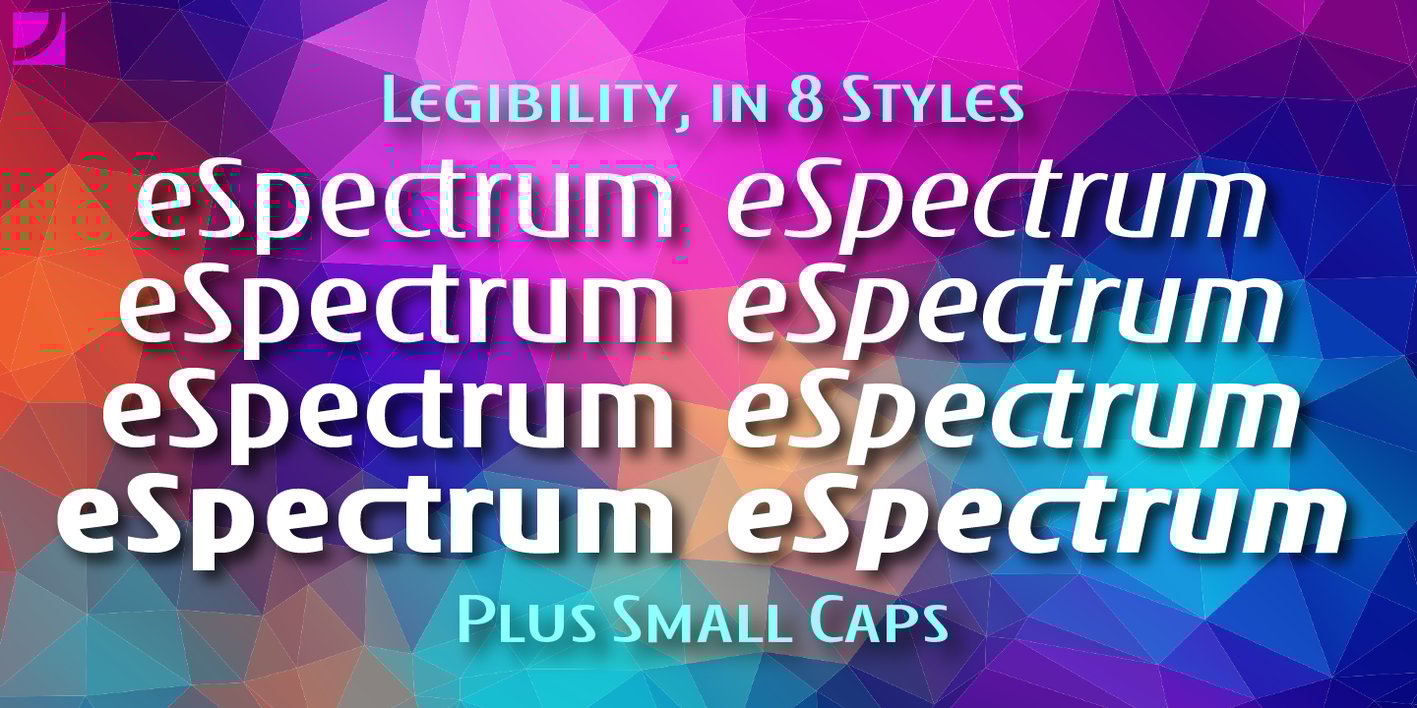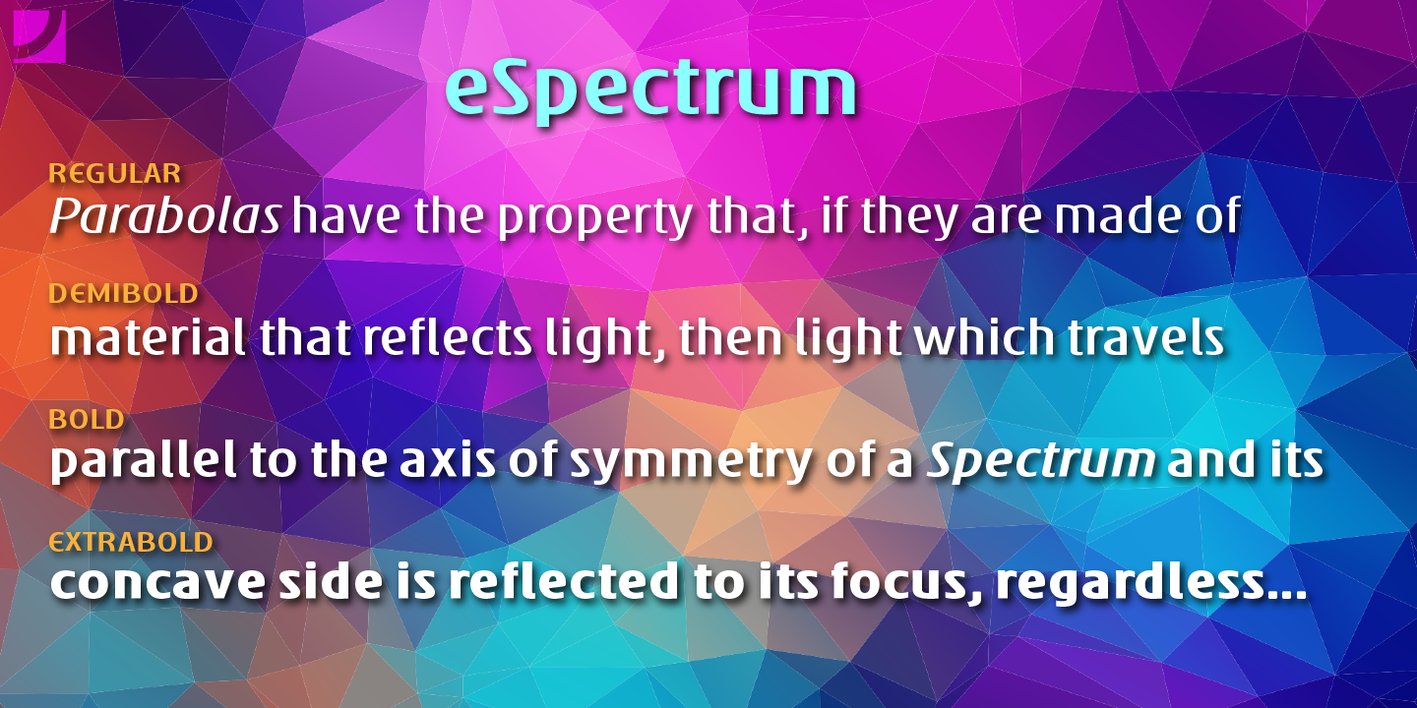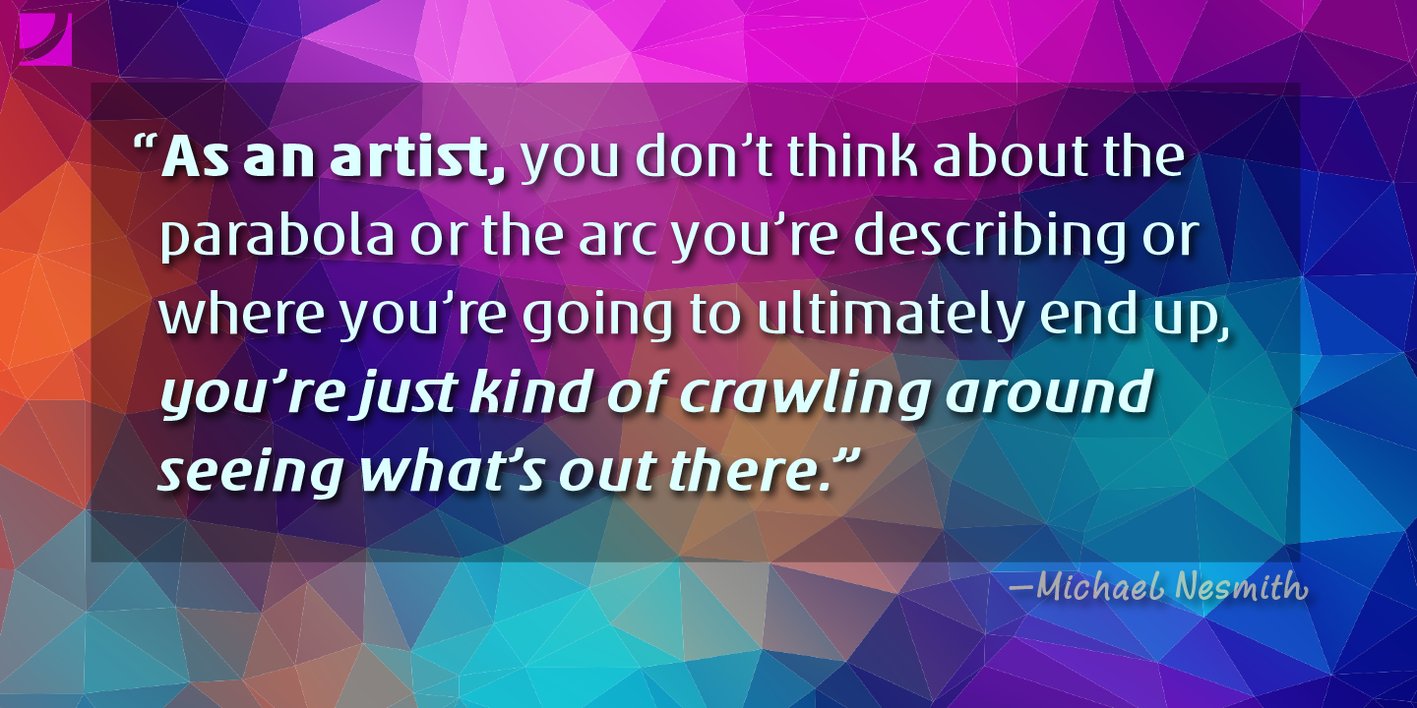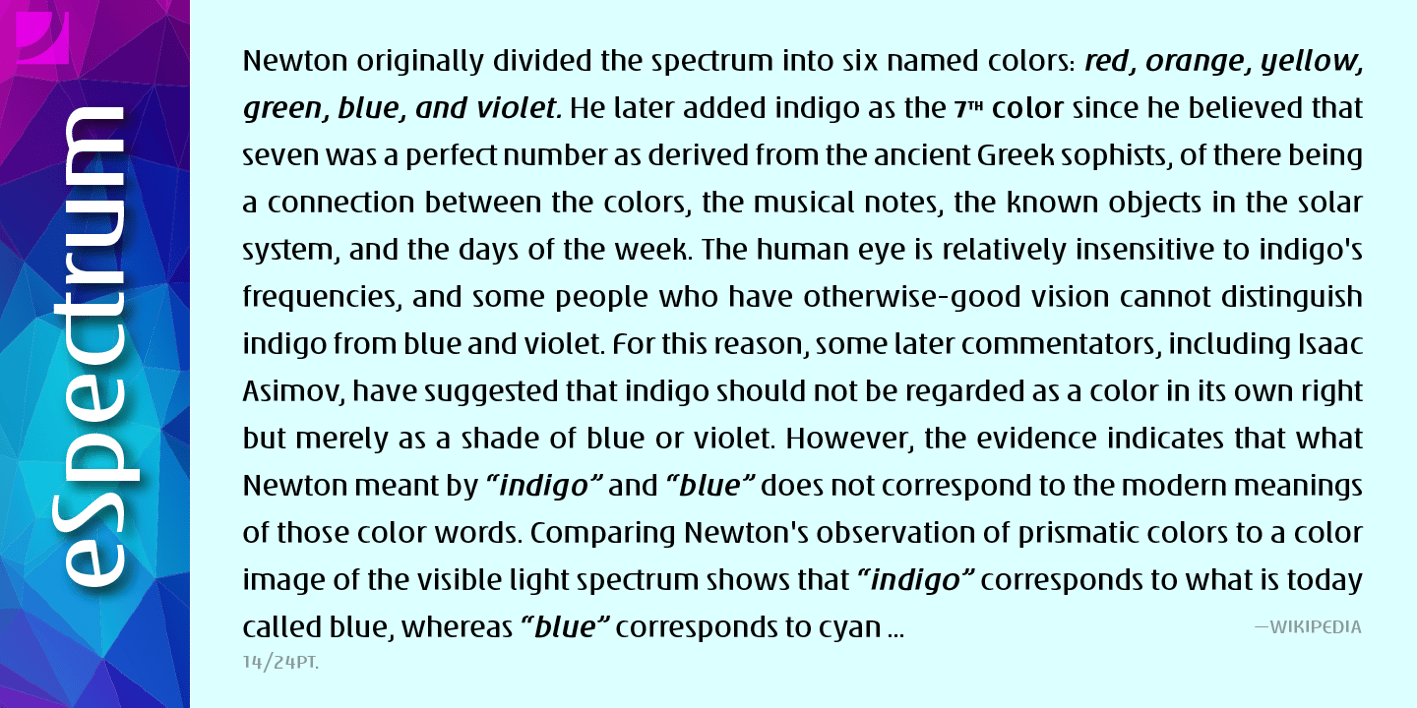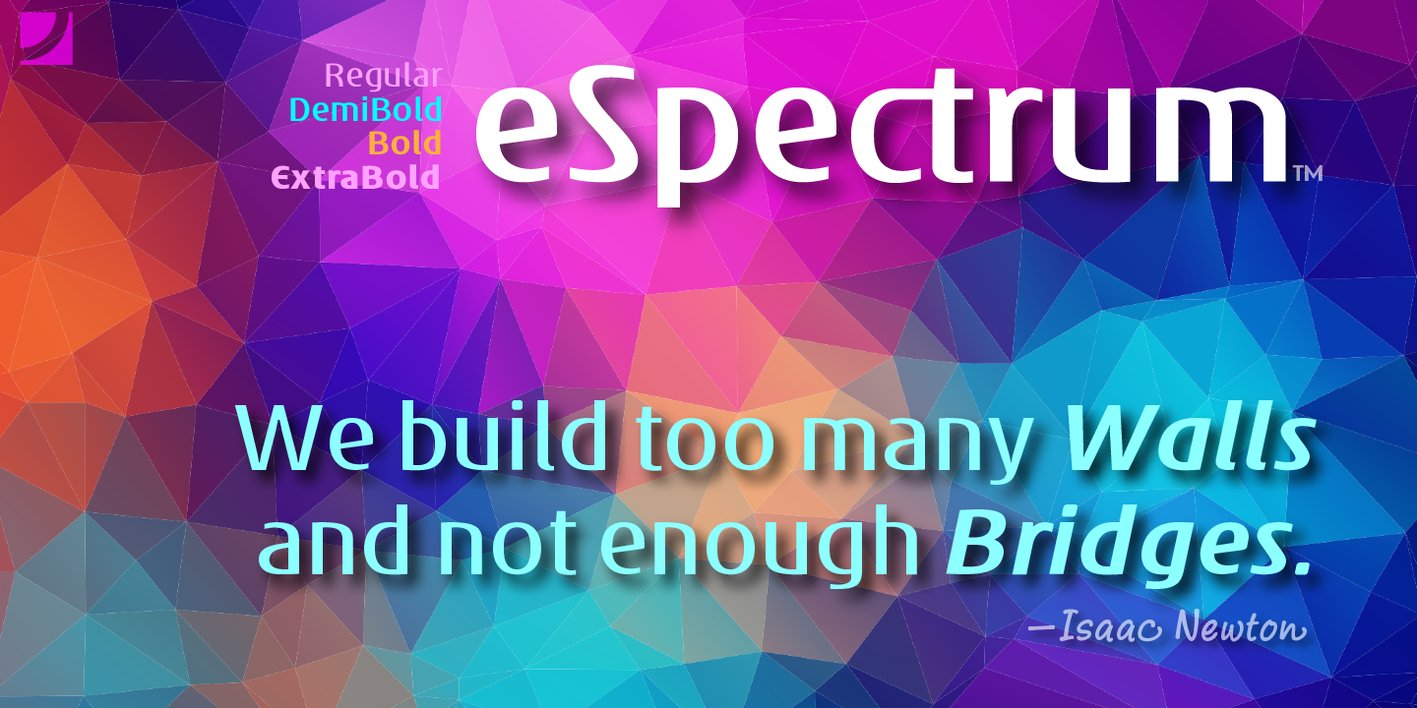
eSpectrum Font
A text and display font suitable for various applications, many of which include, letterheads, packaging and logos. Excellent for very large typographic layouts